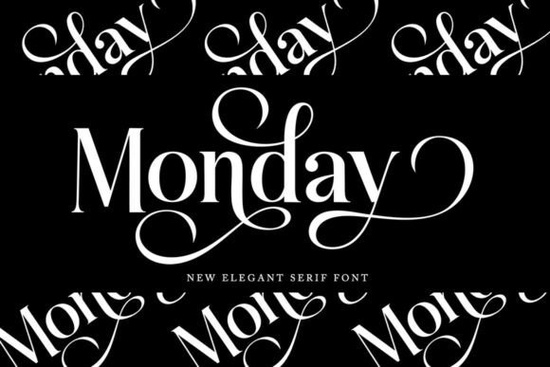
If you're looking for a serif font that feels both polished and approachable, Monday Font might be exactly what you need. It’s a sleek, feminine typeface with smooth letter connections and a clean, readable structure. Designers often reach for it when they want something elegant without being overly fancy. Whether you’re working on wedding invitations, brand logos, or printed stationery, this font fits neatly into a wide range of formal projects.
What makes Monday Font different from other serif fonts?
Most serif fonts can feel stiff or traditional. Monday Font takes a softer approach. The letters have luxurious connections that make the text flow naturally, almost like handwriting but with consistent typographic rules. It’s also PUA‑encoded, which means you can easily access every alternate glyph, swash, and ligature without needing extra software. No tedious copy‑pasting from a glyph palette – you just type and the special characters appear. That alone saves hours when you’re creating custom invitations or packaging labels.
Another difference is its multilingual support. If your project needs accents or special characters for French, Spanish, German, or other European languages, Monday has you covered. That makes it practical for global brands or stationery that will be shipped to different countries.
Is Monday Font suitable for wedding invitations and greeting cards?
Absolutely. The font’s sensual and glamorous style is a natural fit for wedding-related designs. Because it includes stylish alternatives for all letters, you can mix and match to create a unique look for each couple. For example, you can use the standard uppercase for the main names and then add alternate lowercase letters for the body text. The result feels custom without needing a separate script font.
- Works well on invitation suites – reply cards, envelopes, and ceremony programs.
- Adds a romantic touch to greeting cards, especially when paired with a soft color palette.
- The high readability means guests won’t have to squint to read the time and venue.
If you’re a print‑on‑demand seller, Monday Font also shines on labels and packaging. Think of a small batch of perfumes, a skincare line, or artisan soaps – the letter connections give the product a premium feel.
What glyphs and features does it include?
The full set is quite complete:
- Capital letters and lowercase letters
- Alternate letters (different stylistic versions of many characters)
- Punctuation, numbers, and symbols
- Multilingual support (Western European languages and more)
Because the font is PUA encoded, you don’t need any special software – just a standard design program like Adobe Illustrator, Canva, or Affinity. Type the regular key, and the alternate character appears automatically. For designers who sell templates on Etsy or Creative Market, this feature makes the customer experience smoother.
How can I use Monday Font for my projects?
Monday Font is versatile enough for both digital and print work. Here are a few real‑world ideas:
- Logo design – Use the elegant serifs for a feminine beauty or fashion brand. Pair with a clean sans‑serif for contrast.
- Restaurant menus – The readability helps guests scan dishes quickly, while the luxurious feel suits upscale dining.
- Magazines and book covers – Use the decorative alternates for chapter headings and the standard letters for body copy.
- Social media graphics – The font’s clean lines work nicely on Instagram stories and quote posts.
For print‑on‑demand sellers, mockups with Monday Font on tote bags, mugs, or phone cases tend to get attention because the letters look intentional and high‑end.
What other fonts pair well with Monday Font?
If you’re building a full typography palette, consider these similar serif font options. You can explore the Kisvo Font collection for a slightly bolder serif that still keeps a refined look. Kisvo Font works as a strong heading companion. For a softer script alternative, Monday Font’s script category shows you other hand‑lettered styles that blend well with the serif version. Selora Font is another elegant serif – its slightly taller x‑height makes it great for body text in editorial layouts. You can browse the Selora Font page for more details. Polyera Font brings a modern, geometric twist to serif design, ideal for minimalist branding. Check Polyera Font’s serif collection for pairing ideas. Finally, Royal Serif Font is a classic choice for formal invitations; explore it here if you want something more traditional.